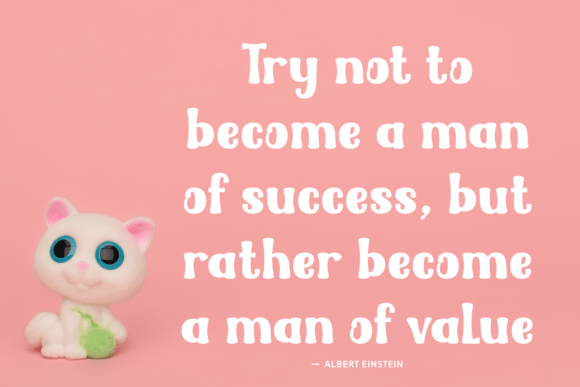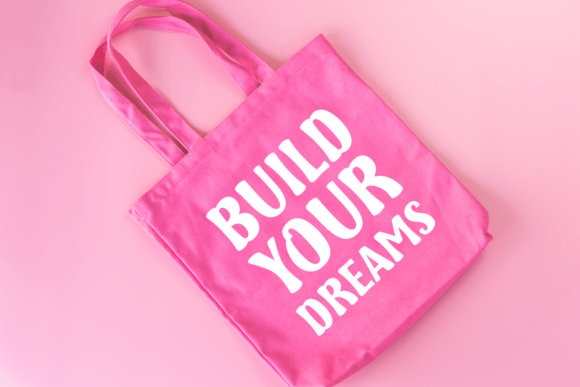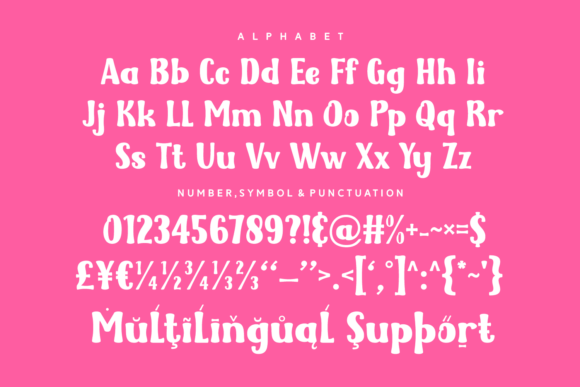
Introduction to Shine Bravely Font
“Shine Bravely” embodies the brilliance of display fonts harmoniously woven into craft fonts.
Key Features of Shine Bravely Font
Why Choose Shine Bravely Font?
Shine Bravely Font offers exceptional quality and versatility, making it a valuable addition to your design toolkit. Whether you’re creating for personal projects or commercial use, Shine Bravely Font delivers professional results.